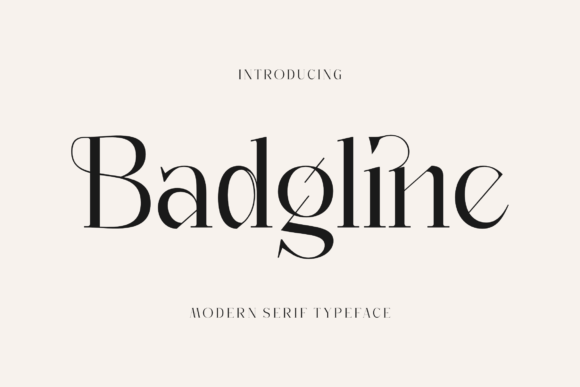
Unleash the sophistication of Badgline, a timeless serif typeface that exudes elegance and luxury. Crafted by Storytype Studio, this font is a masterpiece of modern and classic design, meticulously crafted to captivate audiences and elevate your creative projects.
Step into a world of refined typography as Badgline adorns your website headings, transforming them into works of art. Its carefully balanced strokes and elegant curves bring a touch of timeless beauty to your digital presence, leaving an unforgettable impression on visitors.
Beyond its digital prowess, Badgline shines in the realm of print as well. Envision your brand's logo, book covers, and movie titles adorned with Badgline's timeless charm. Its versatility extends to fashion brands, magazines, clothing designs, and lettering, adding a touch of sophistication to every creation.
Unlock your creativity with Badgline, the font that breathes life into your words. Its versatility knows no bounds, making it the perfect companion for a myriad of projects. From heartfelt quotes to captivating headlines, Badgline transforms ordinary text into visually stunning masterpieces.
Step into the realm of typographic excellence with Badgline, and embark on a journey of creative expression. Let your imagination soar as you witness the transformative power of Badgline, elevating your projects to new heights of elegance and distinction.